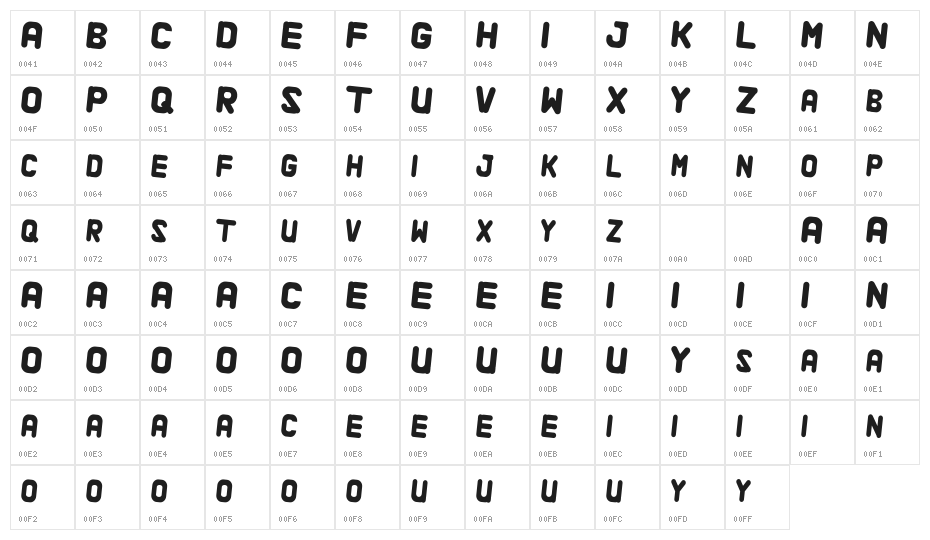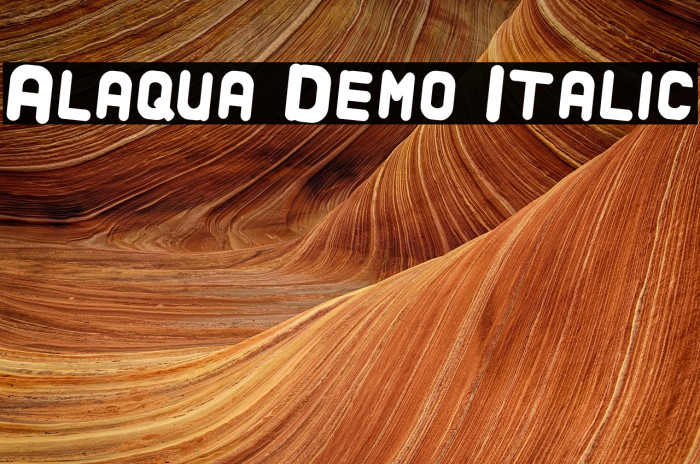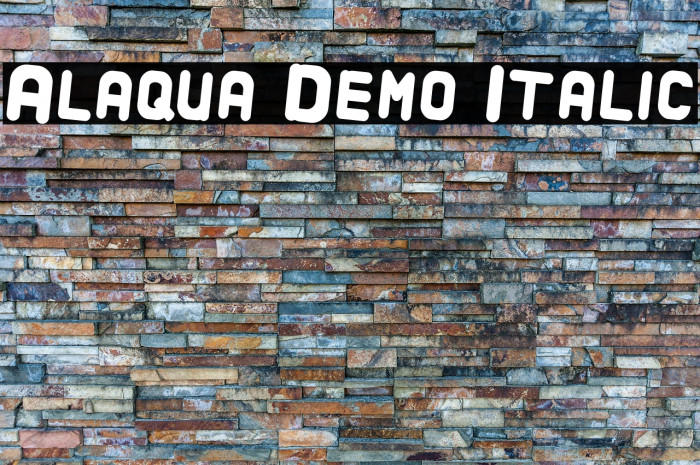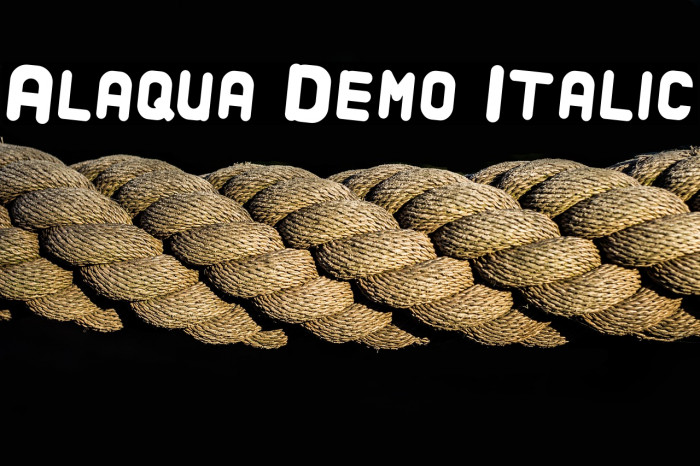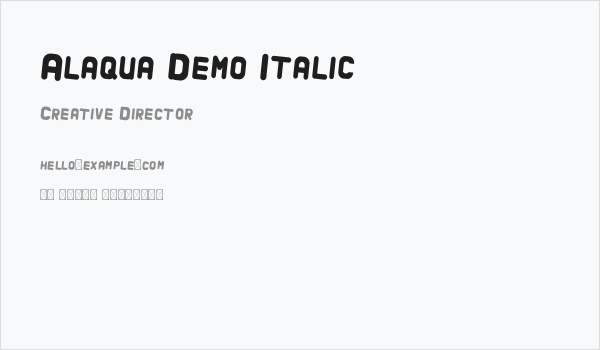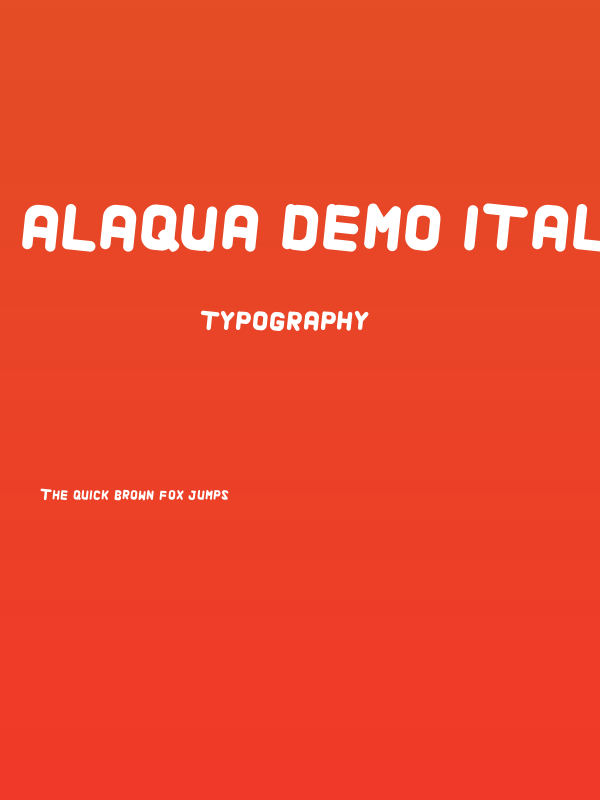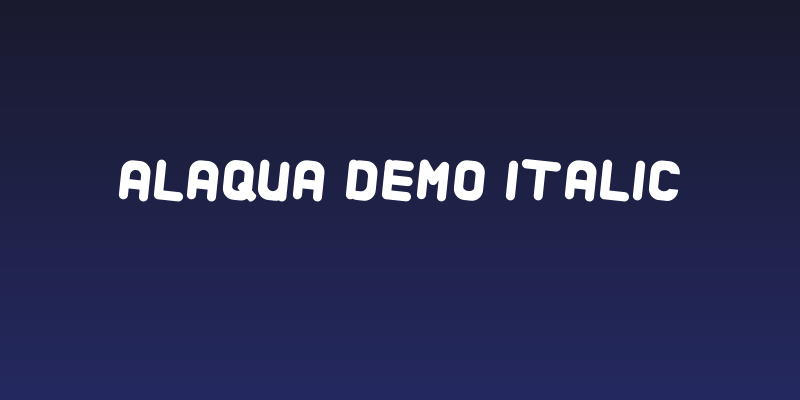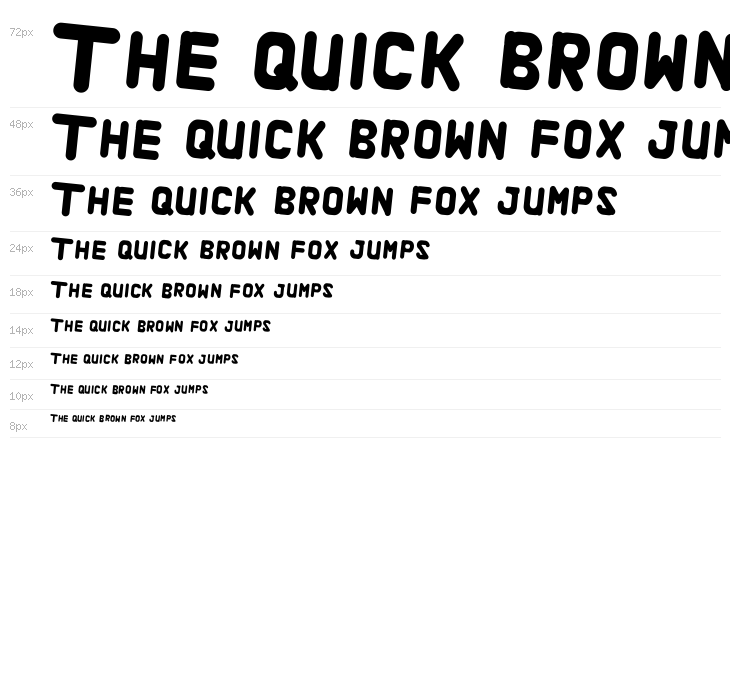
Alaqua Demo Italic Font
Alaqua Demo Italic Description
This font features a playful and rounded style with a consistent italic slant, giving it a dynamic and energetic appearance. The characters are bold and have a uniform stroke width, contributing to a strong visual presence. The rounded edges soften the overall look, making it approachable and friendly. This font is highly legible, even at smaller sizes, due to its clear and distinct letterforms. The spacing between characters is normal, ensuring readability while maintaining a cohesive appearance. Its unique style makes it suitable for creative and informal applications.
| Proposed Projects | Ideal for children's books, playful branding, casual invitations, and creative posters. |